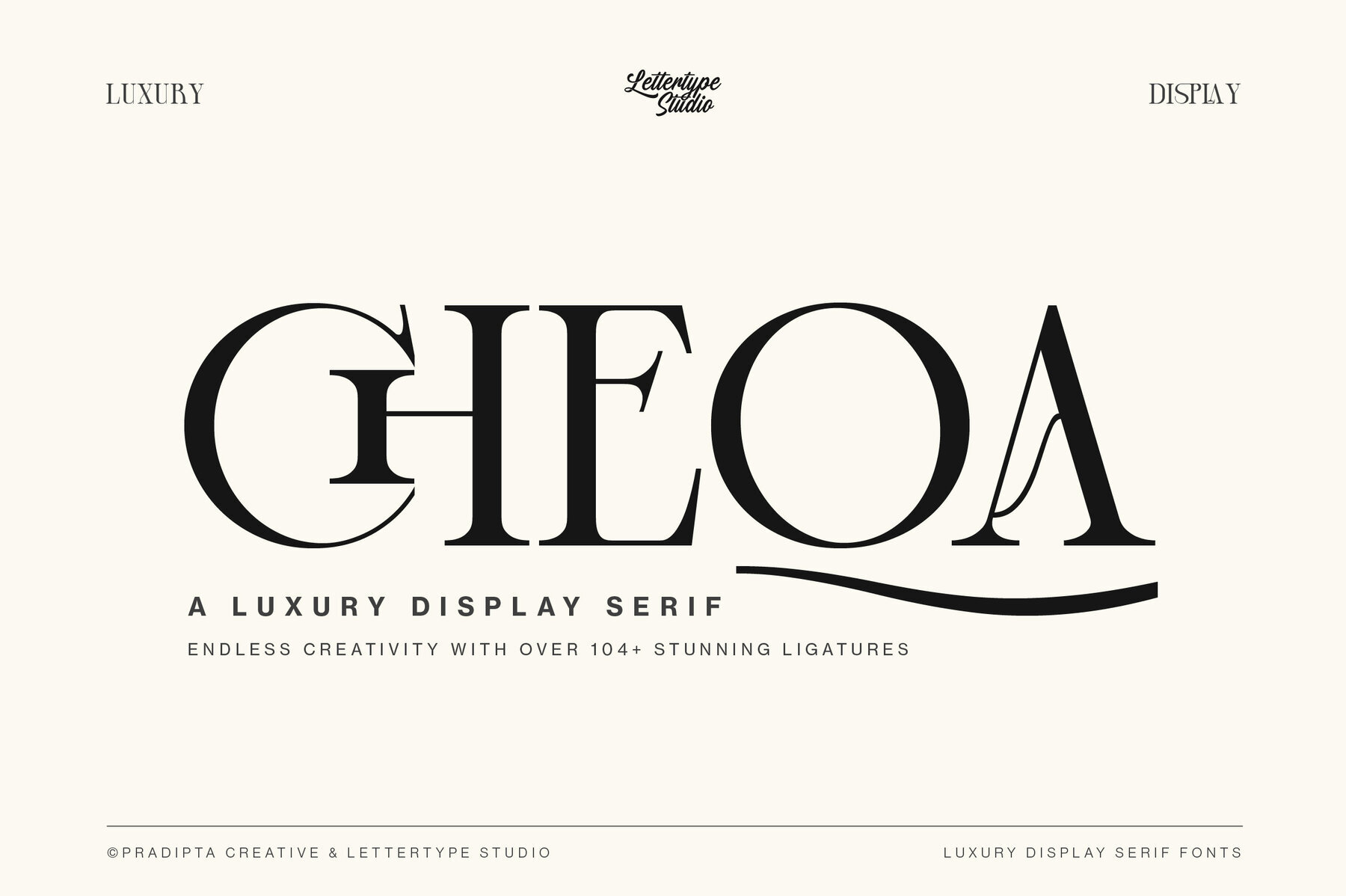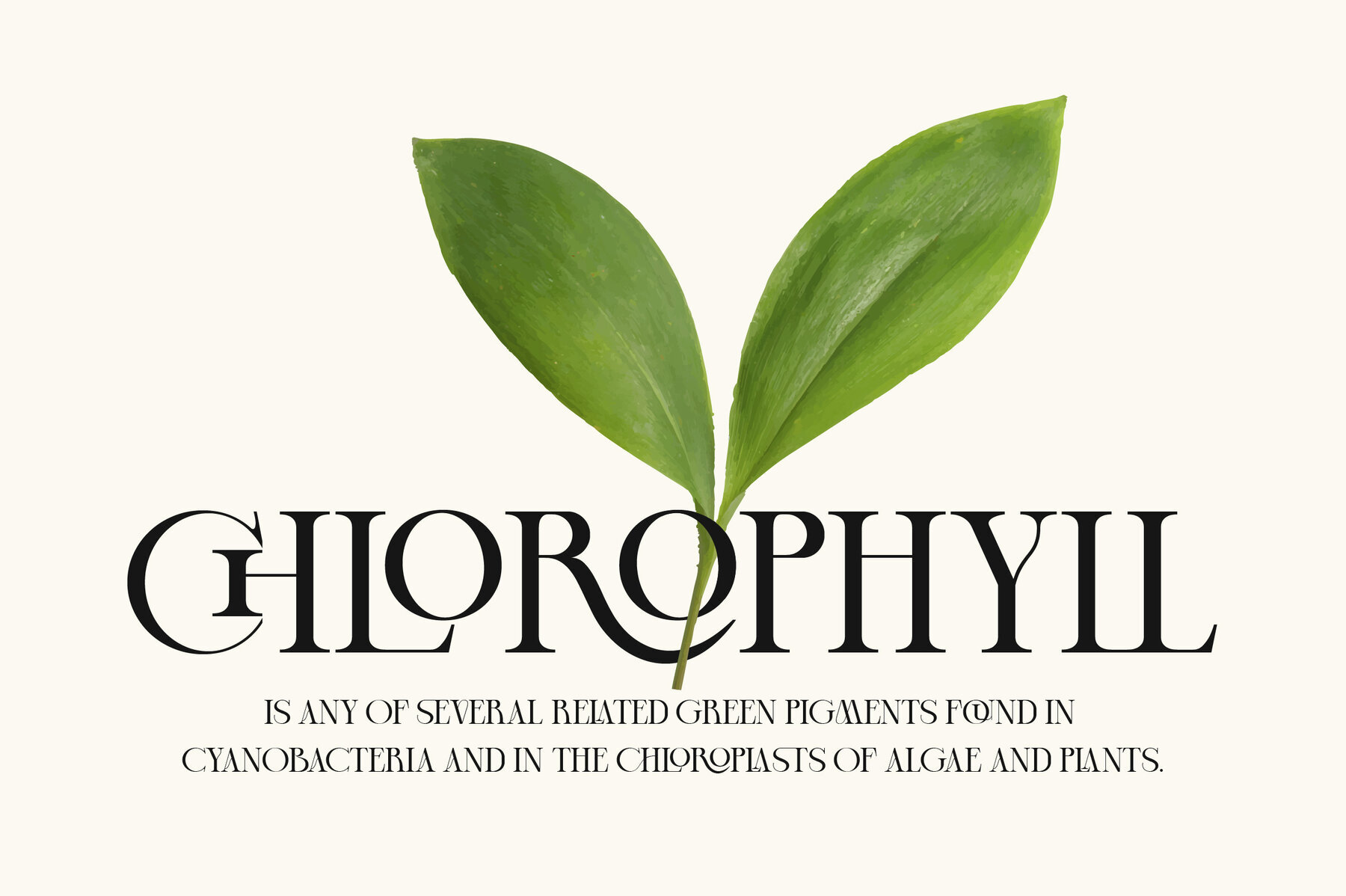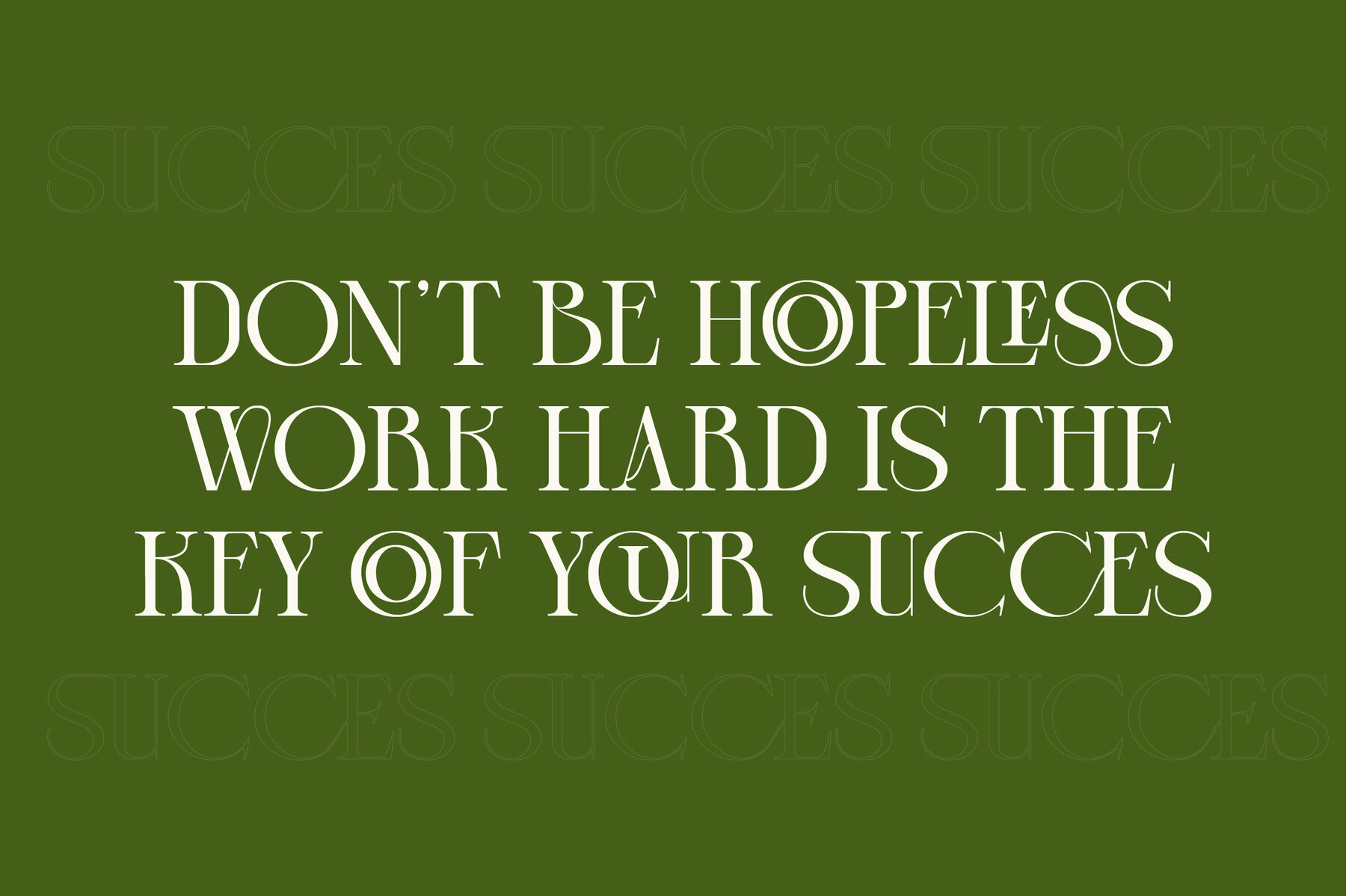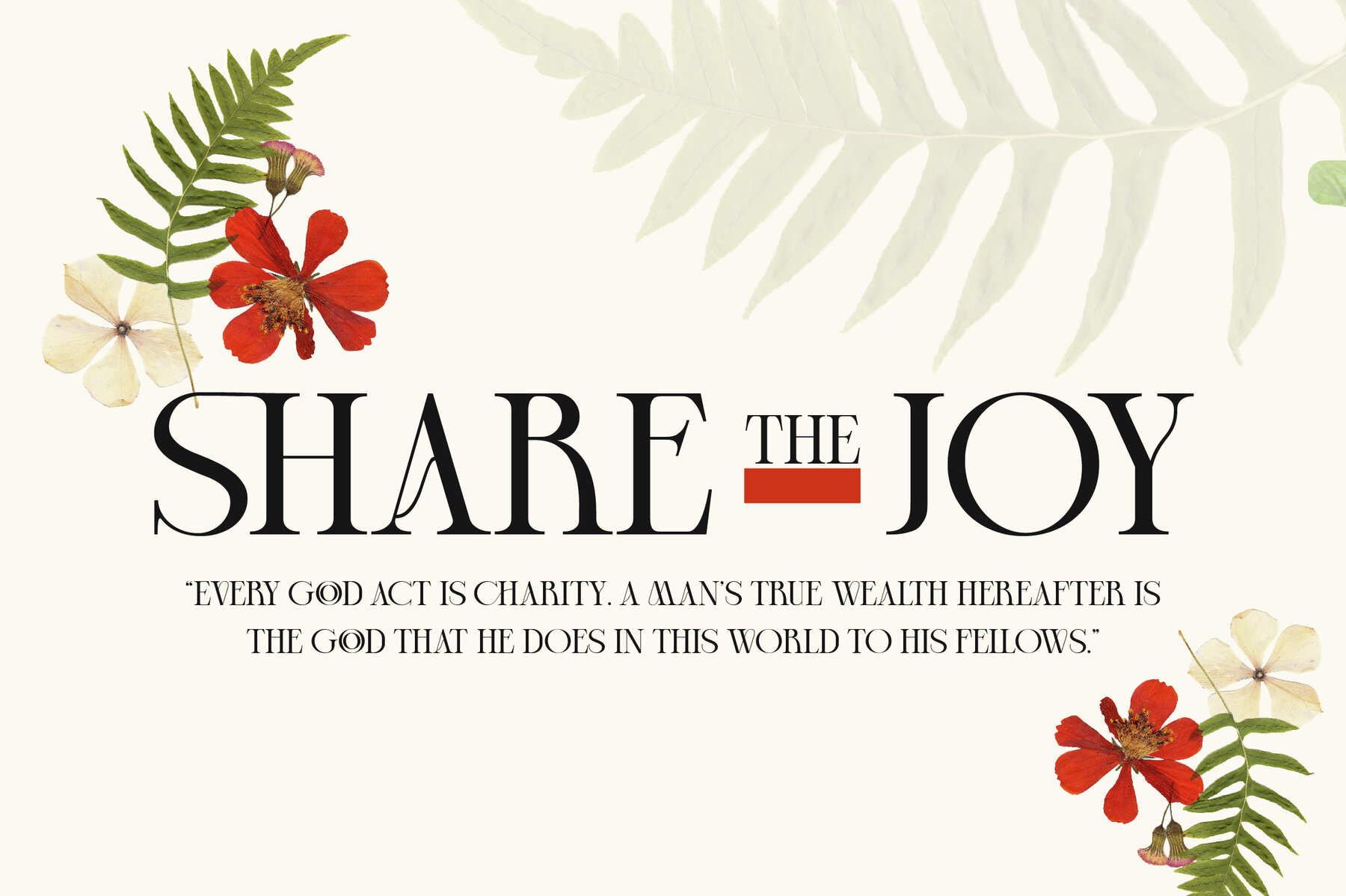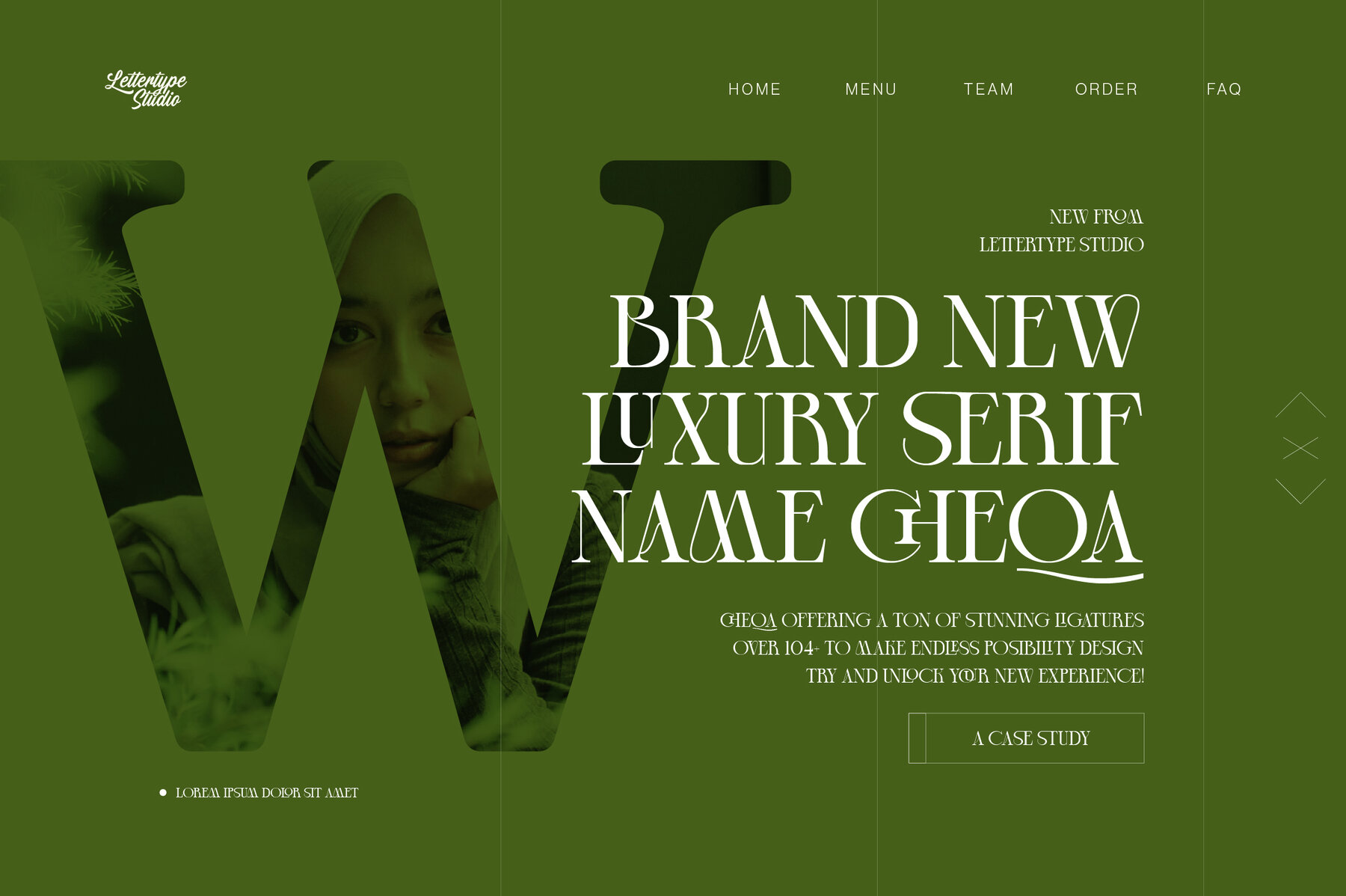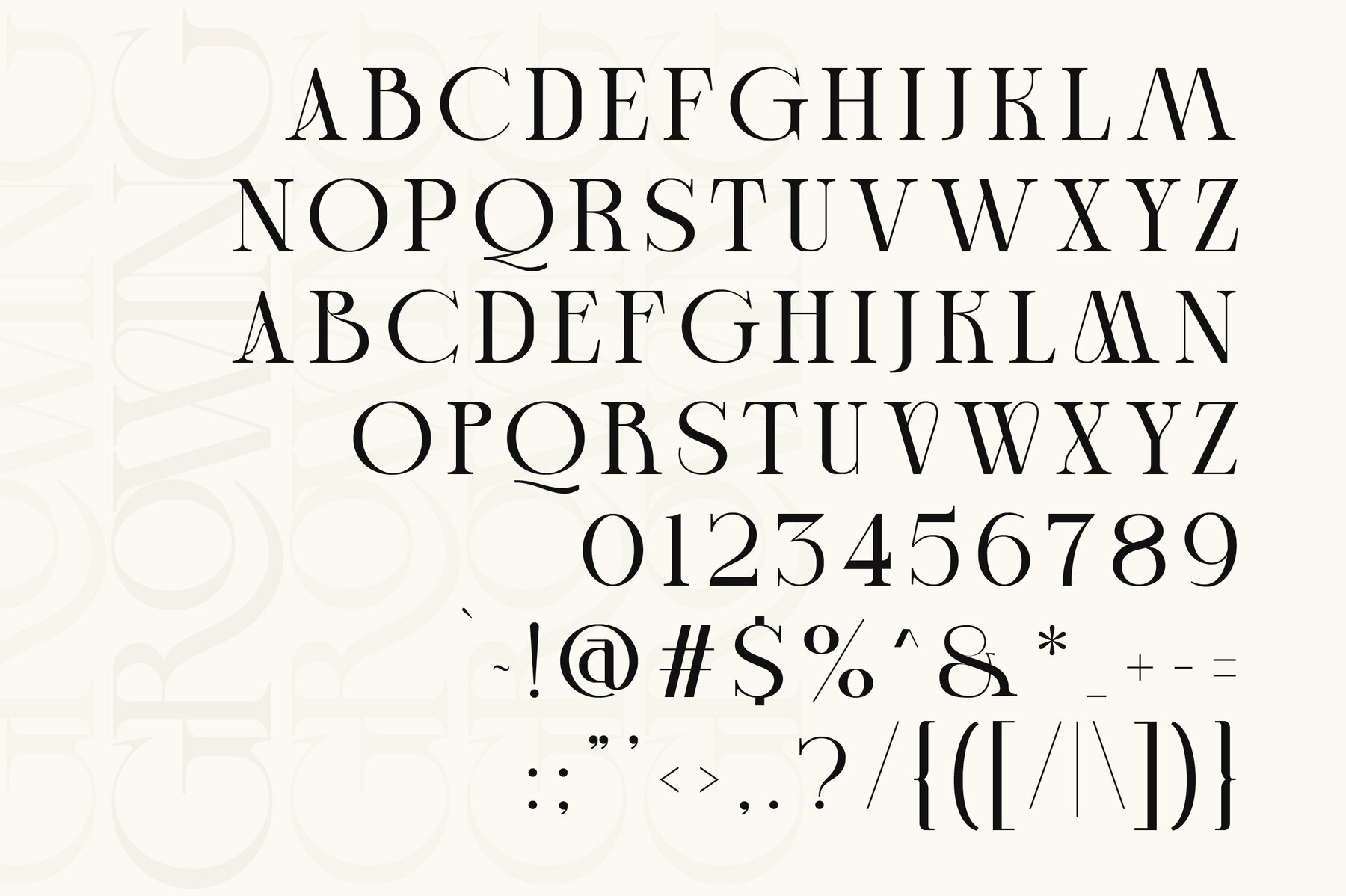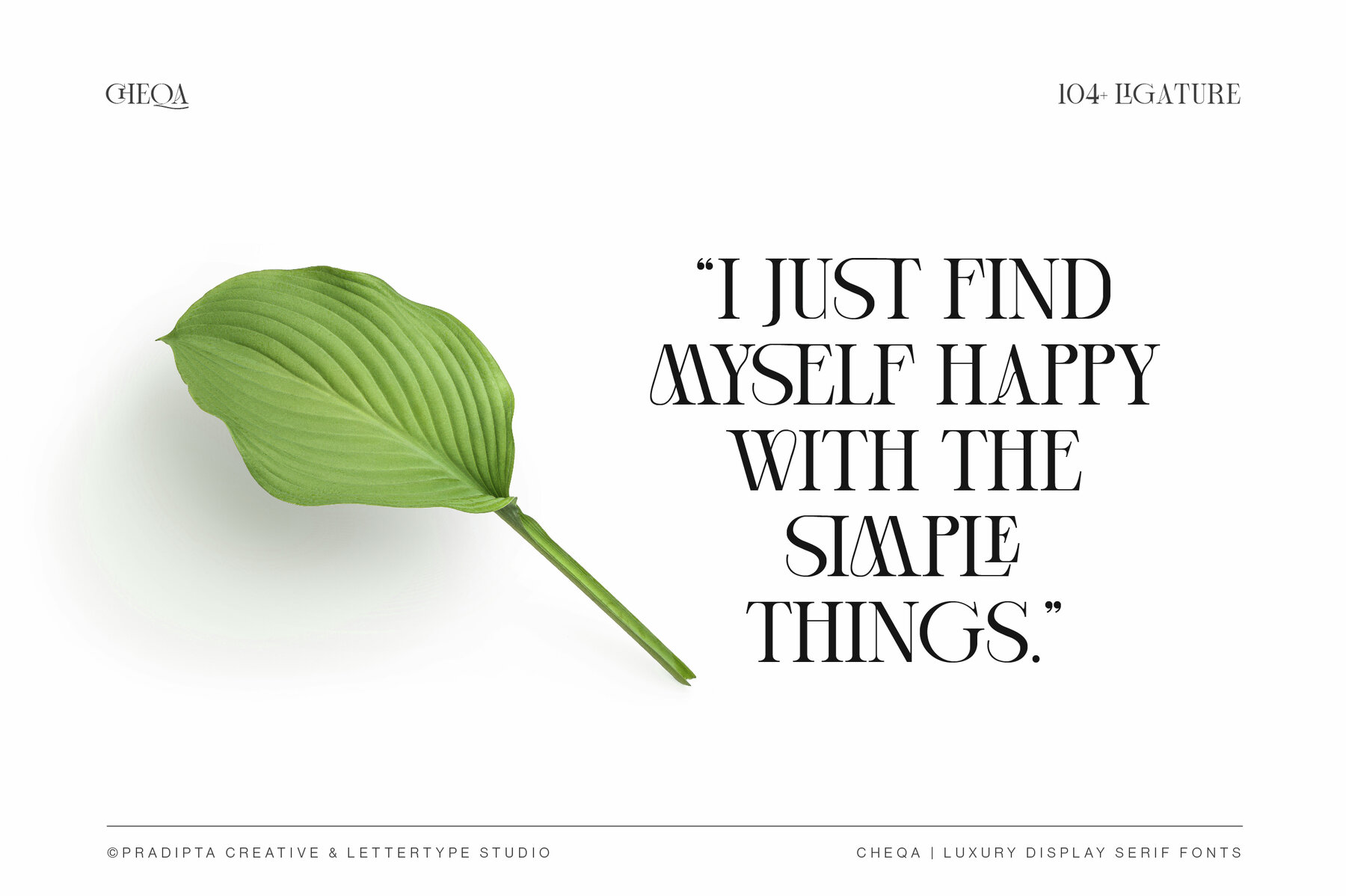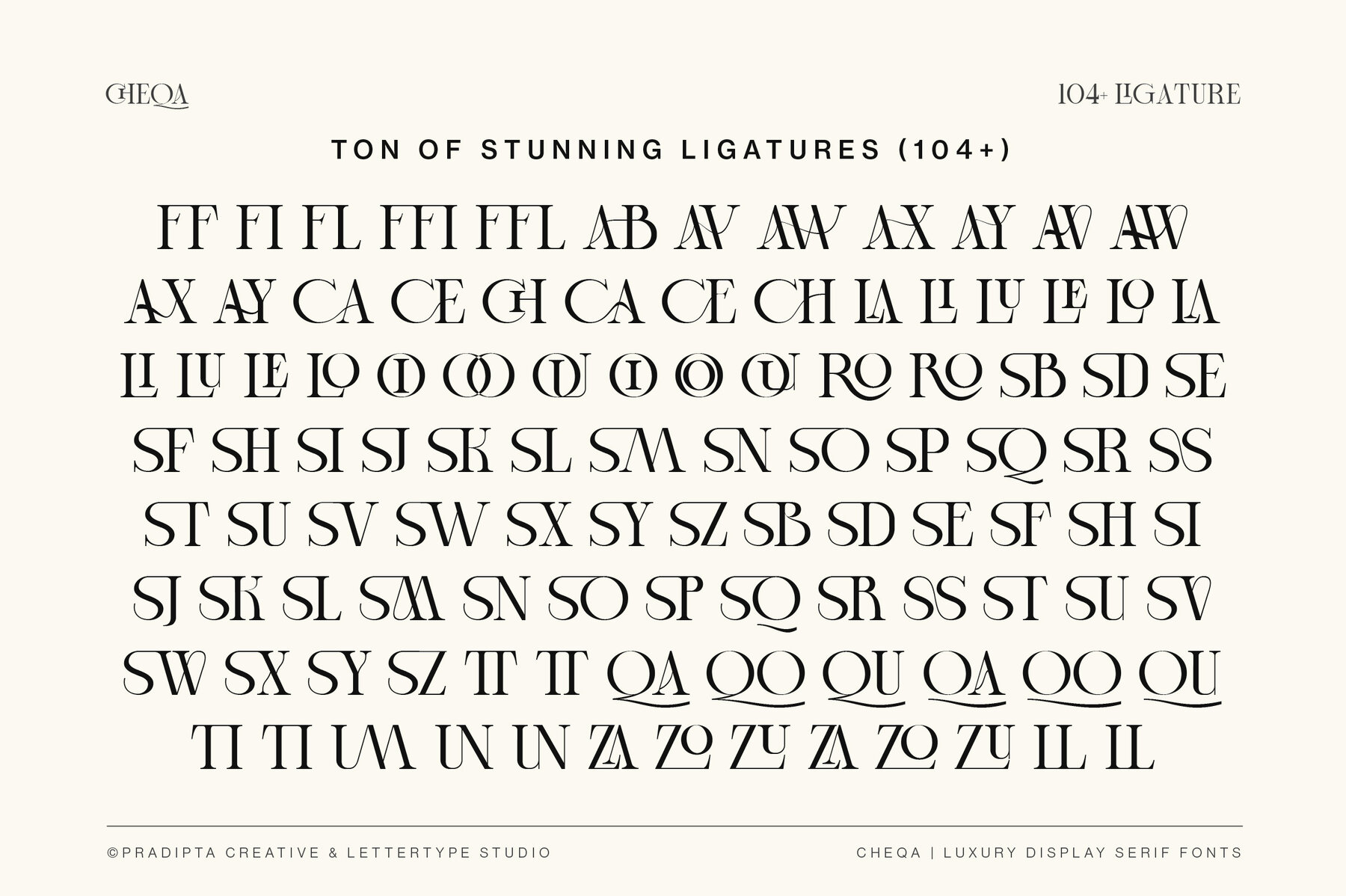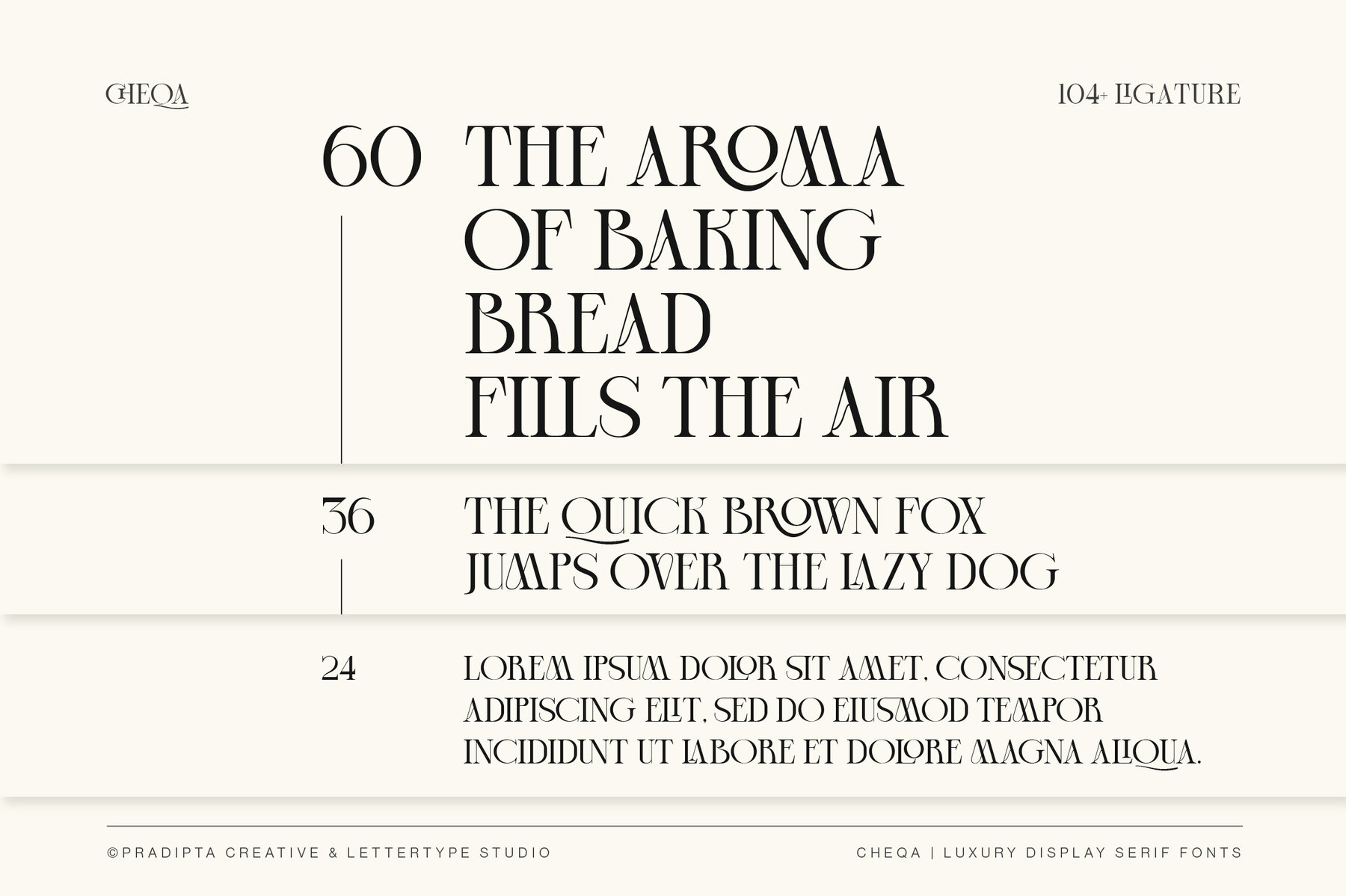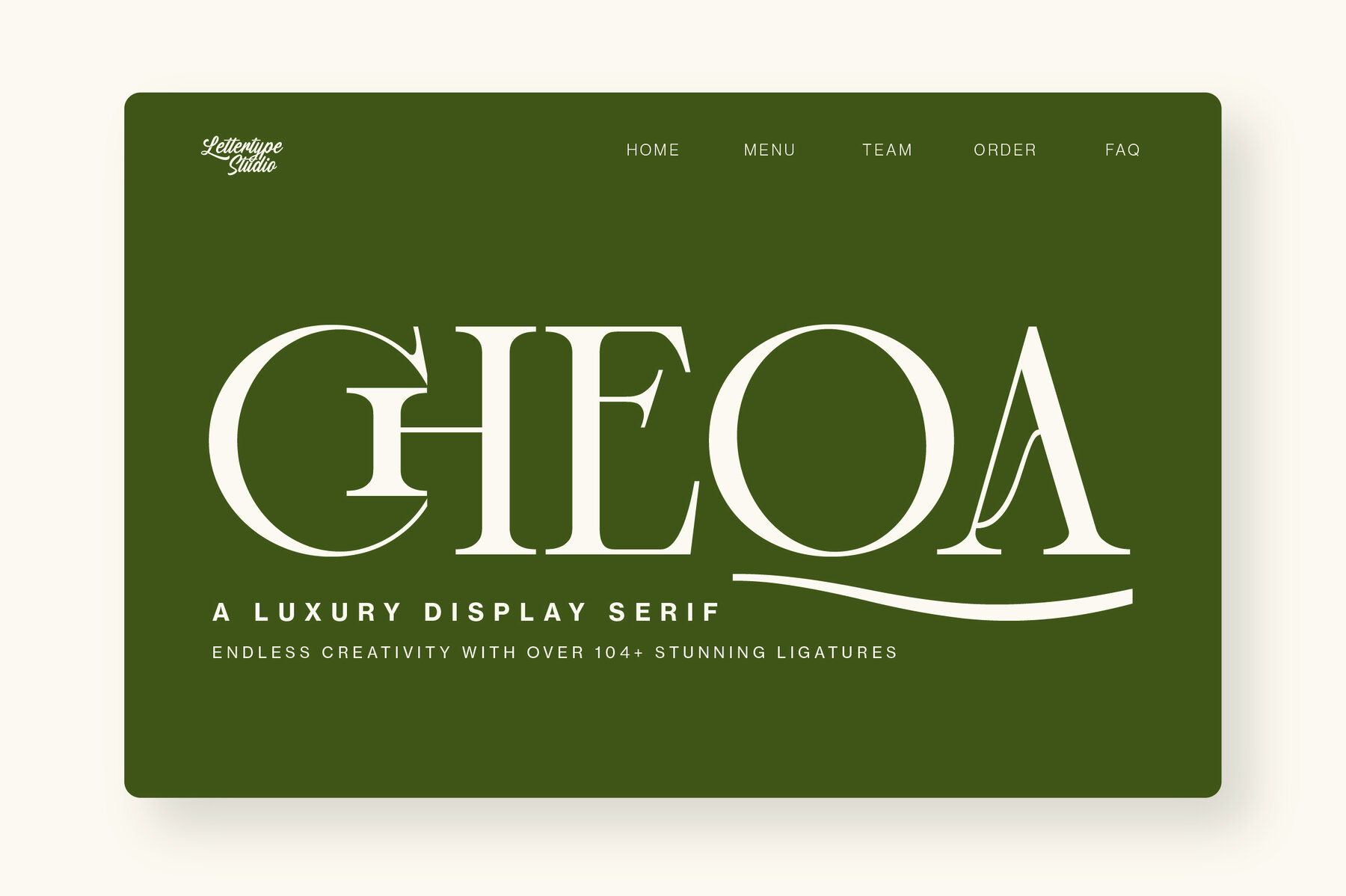
Cheqa Font
Cheqa Regular
Cheqa is an elegant chic serif font that draws inspiration from the classic typographic styles of the 18th century. It is perfect for sophisticated branding, editorial design, and web typography, offering clean lines and luxurious details that make your projects stand out. This font is ideal for designers looking for refinement and versatility in their typography choices. The Cheqa font offers a unique combination of modern and vintage flair with multiple styles and multilingual support. Whether used in digital or print, this font performs well in both large and small sizes, and includes 18 styles in normal and italic forms. It features an impressive array of 104+ unique ligatures, enhancing its adaptability and range. Features:Cheqa: Luxurious Serif With Timeless Appeal